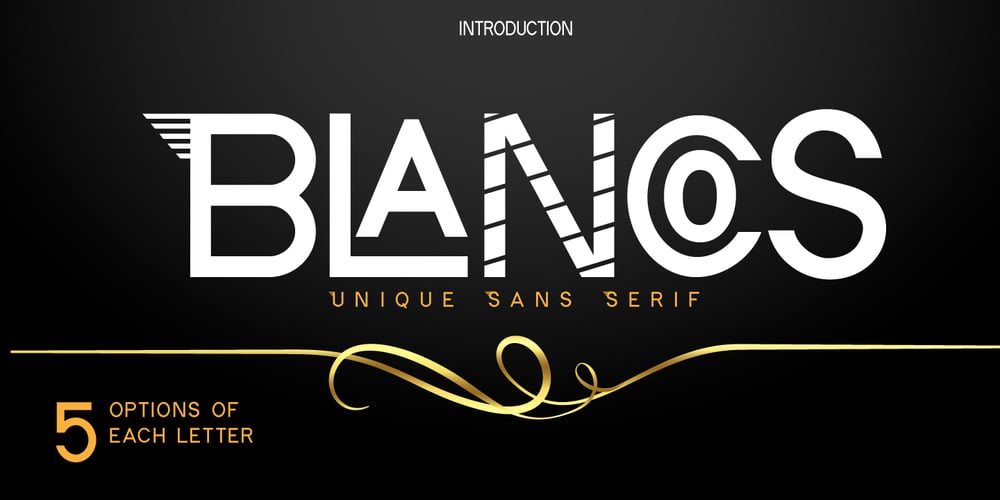
BLancos Font Family was designed by Fauzul Azmi and published by PojolType. BLancos contains 1 styles and family package options. Blancos is a new font for minimalist logo designs. This font is suitable for creating word marks, titles, taglines. Use alternatives to emphasize separate letters in your text.The font contains: 4 choices of Uppercase letters 1 choice of lowercase letters Ligatures Multilingual Support (Europe Latin West), Numbers and Punctuation All options of the characters are included in one font. You can use alternates in most major image editors, just find menu item Glyphs (Alternates) there.